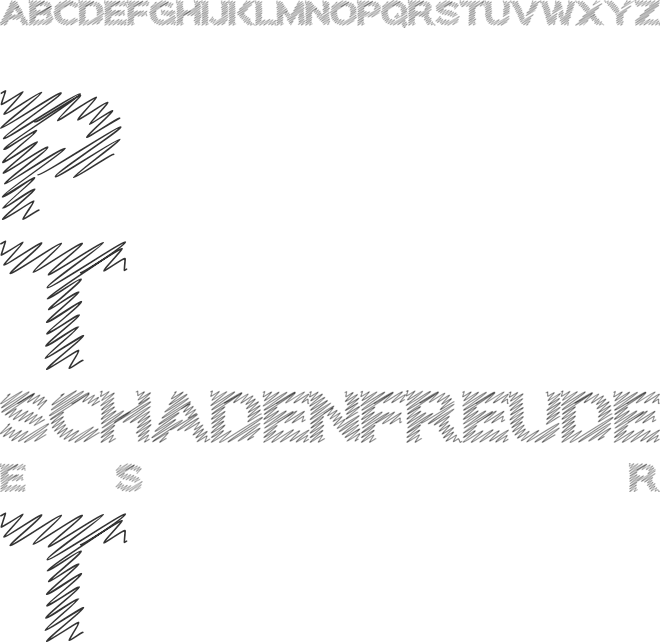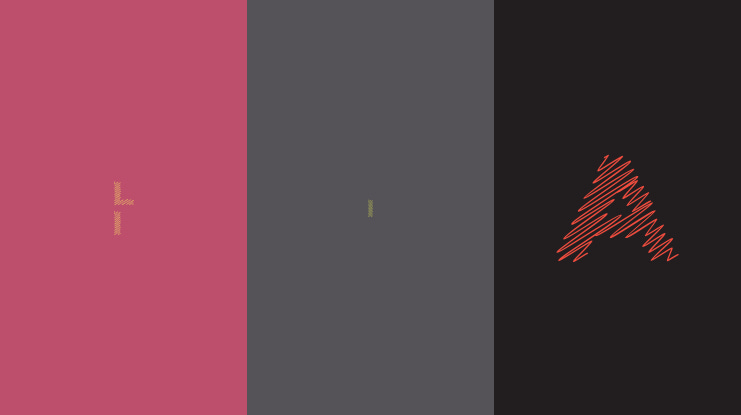
🎨 Font Name: SCRIBBLE by Minimalist Art Studio
🎨 Font Description: A playful decorative sans serif with hand-drawn scribble charm—perfect for quirky headlines and expressive design.